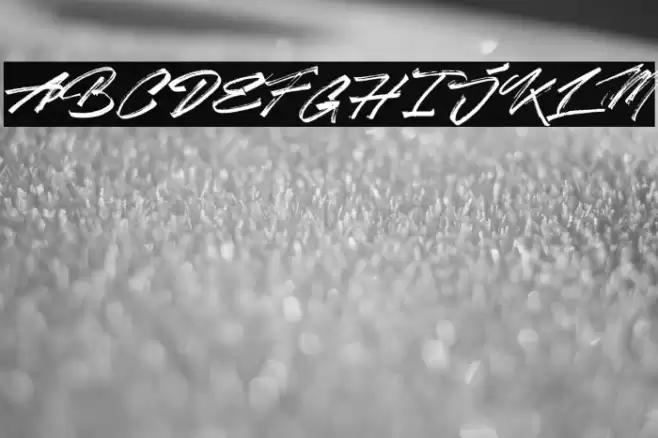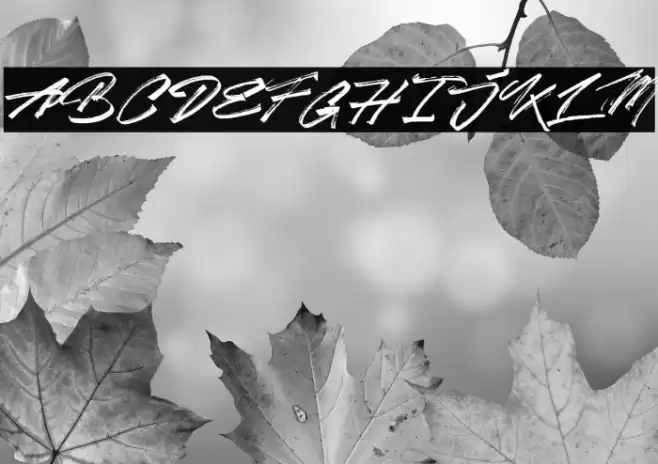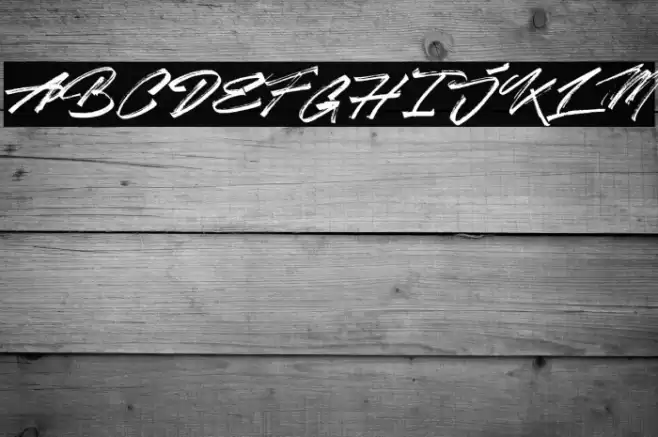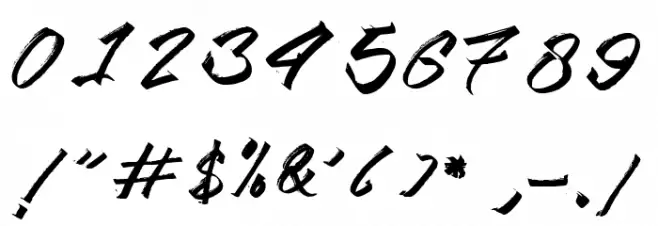
After Zero Font
After Zero Description
This font features a dynamic and expressive style, characterized by its brush-like strokes and fluid motion. The letters are connected in a cursive manner, giving it a handwritten appearance. The uppercase and lowercase letters maintain a consistent flow, while the numbers and special characters complement the overall aesthetic. The texture of the strokes suggests a sense of movement and energy, making it ideal for creative and artistic projects. The font's bold presence and unique style make it stand out, offering a modern twist on traditional script fonts.
A dynamic, brush-style script font with a bold, handwritten appearance from Uncategorized fonts.
- Font: After Zero
- Proposed Projects: Ideal for branding, posters, invitations, and artistic projects that require a personal touch.
- Use Case: Logos, Headlines, Artistic projects